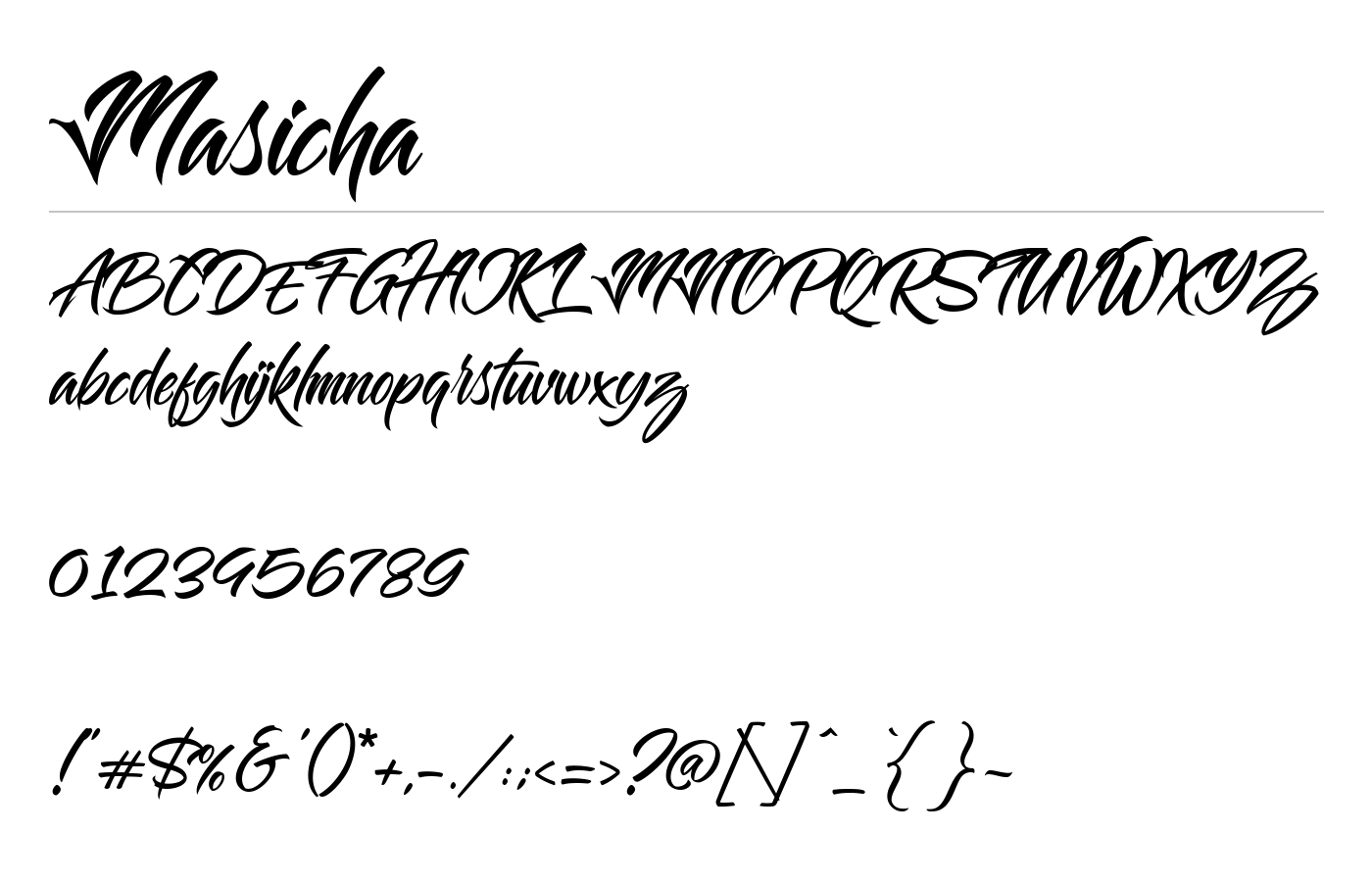
Masicha Handwritten is a lively and expressive script font that features bold, flowing strokes with a distinctly modern calligraphic style. Its dynamic letterforms, with varied stroke thickness and elegant curves, convey a sense of creativity and personality, making it perfect for branding, invitations, and eye-catching headlines where a handcrafted, artistic feel is desired. This font shines in projects that seek a stylish and personal touch without sacrificing readability.
Masicha Handwritten Font
About Masicha Handwritten Font